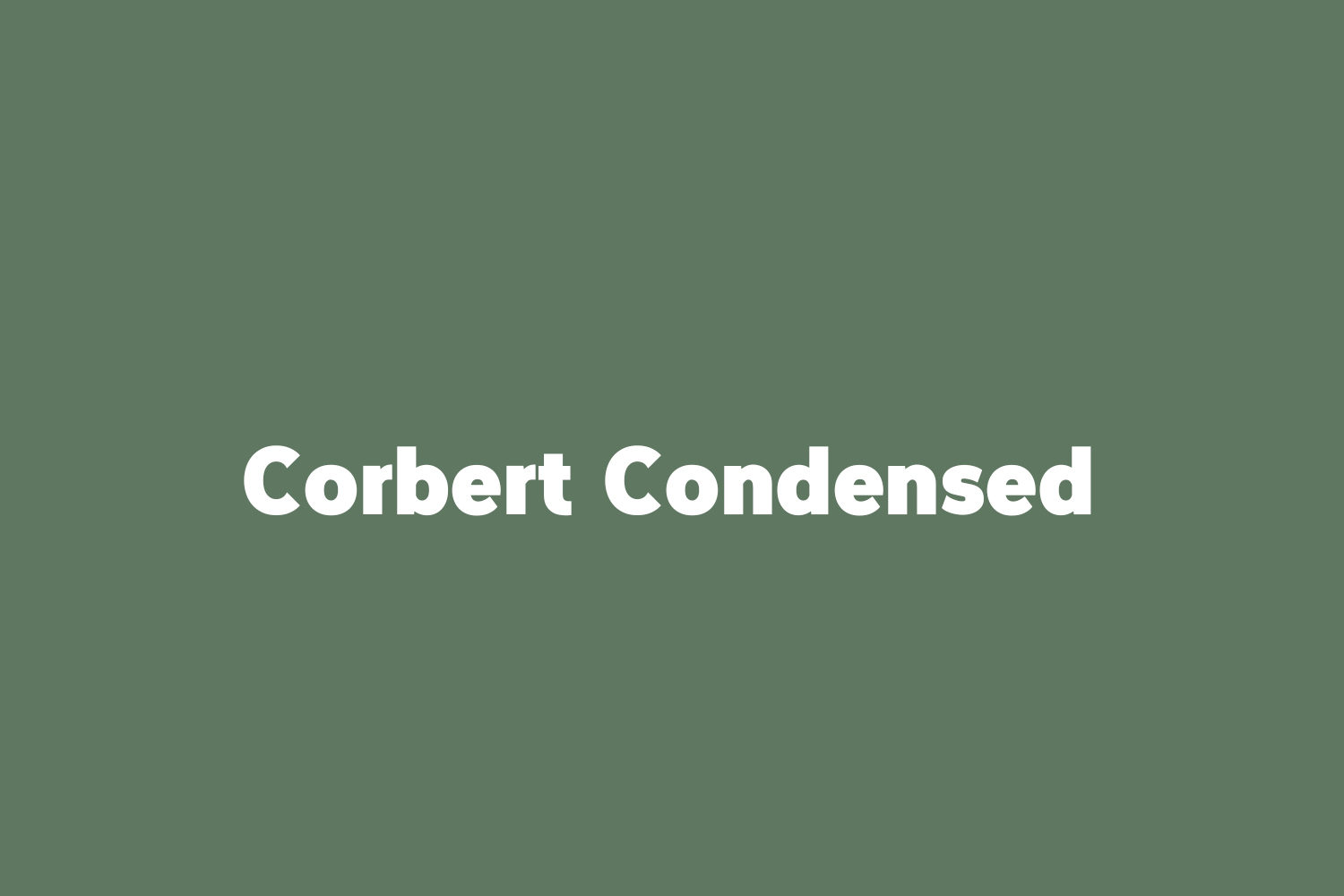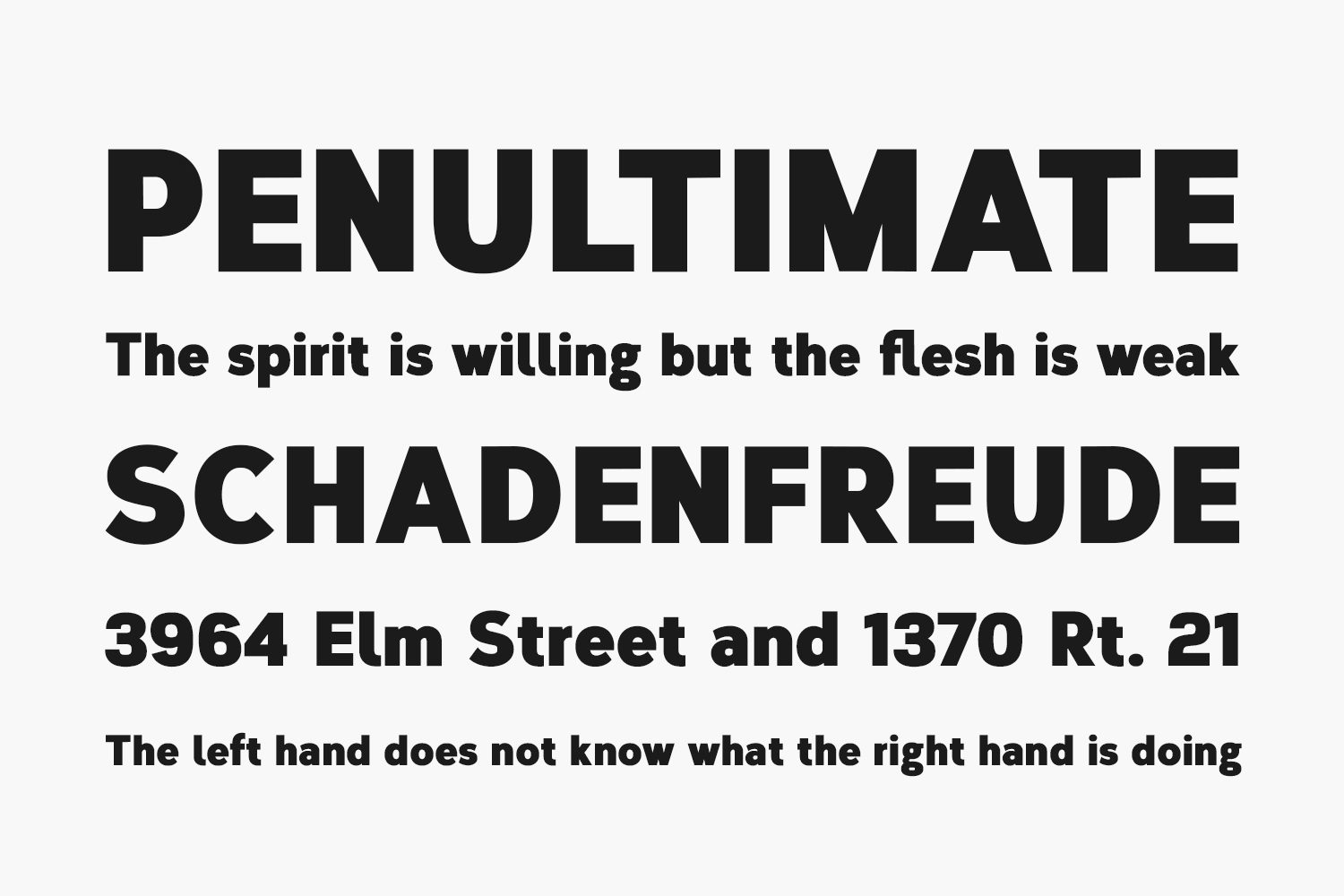
Corbert Condensed
A condensed sans serif designed as an additional companion to the Corbert Free Font Family. Incorporating the key characteristics from the original family with influences drawn strongly from the Bauhaus and modernist era. This condensed version is 15% closer than the normal family improving economy of space across design layouts. Used in conjunction with the regular widths Corbert becomes a functional and versatile font system ideally suited for large complex design projects.
Designed by The Northern Block